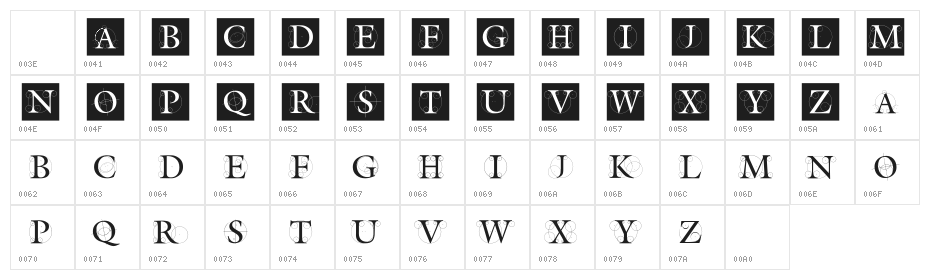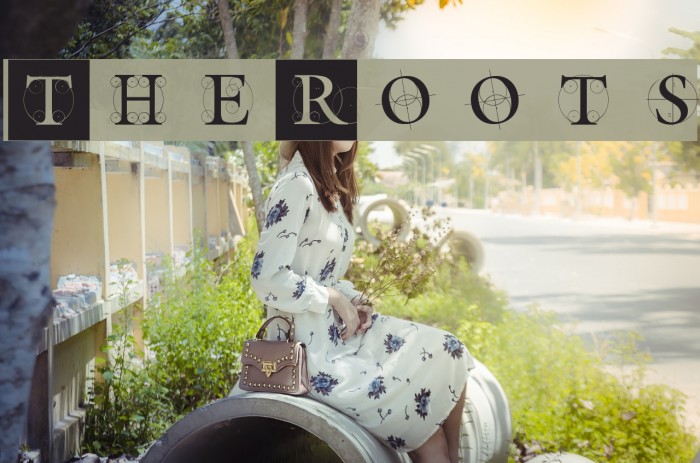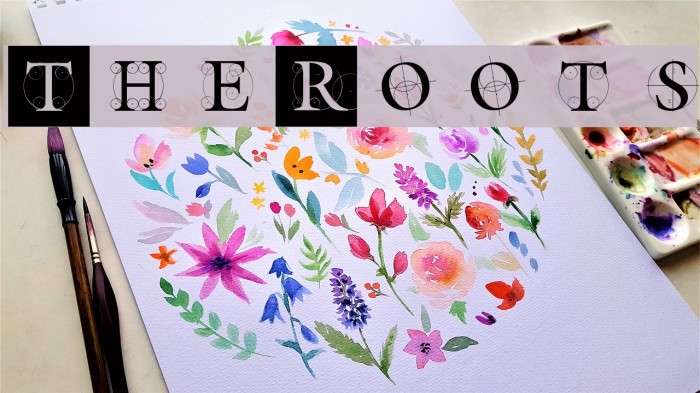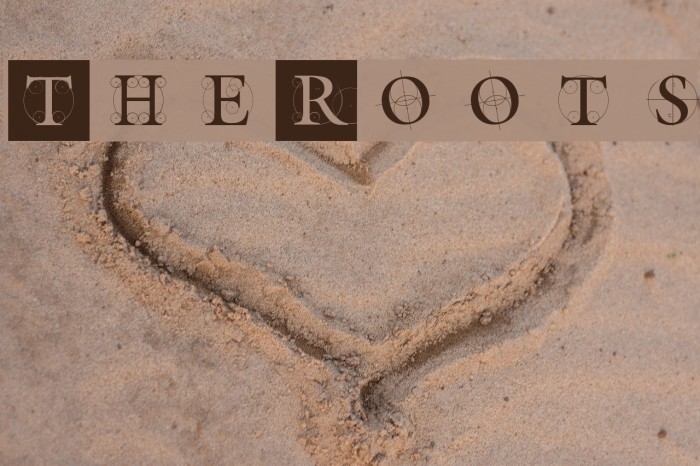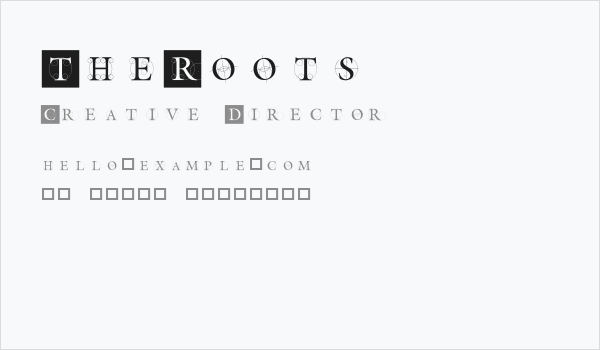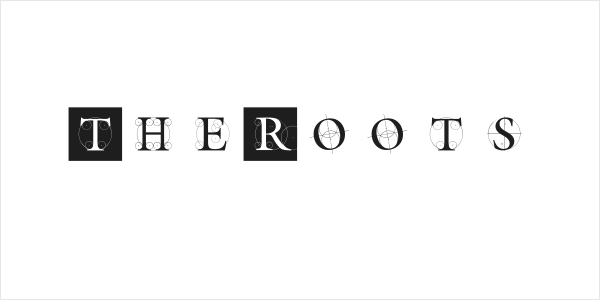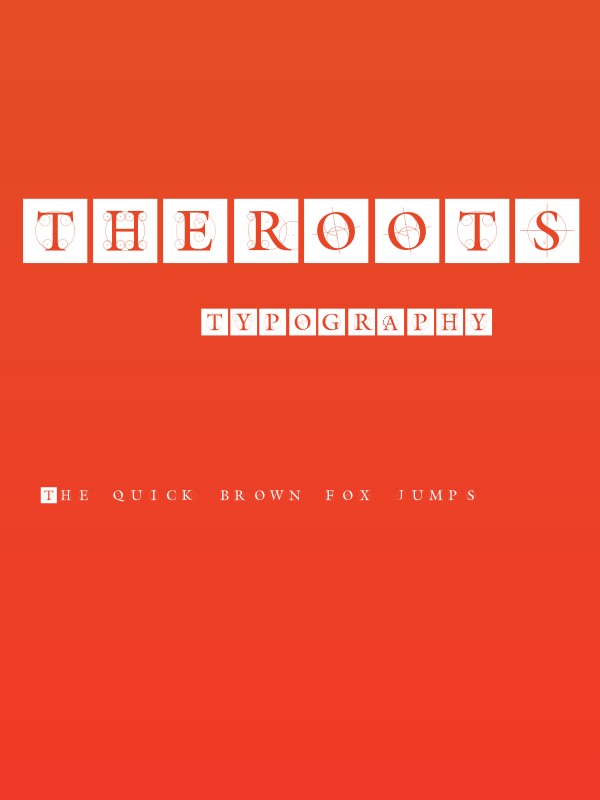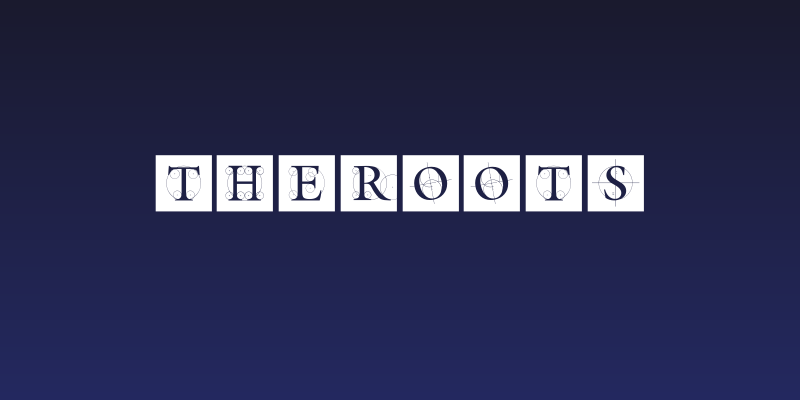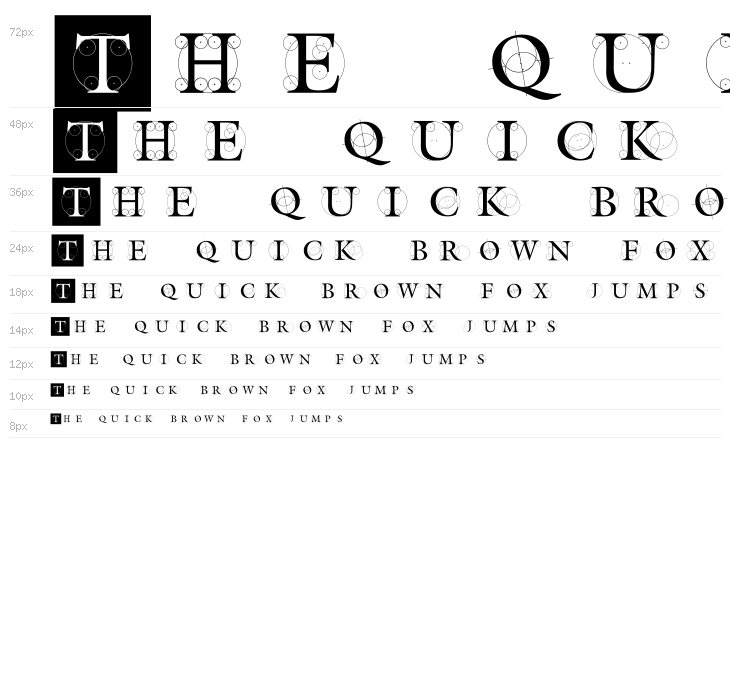
TheRoots Font
TheRoots Description
This font features a unique blend of classic serif elements with a modern twist. Each character is encased in a square, providing a distinct and structured appearance. The letters are adorned with intricate, swirling embellishments that add an artistic flair, making them stand out. The overall design is both elegant and bold, with a high contrast between the thick and thin strokes. This font is perfect for projects that require a touch of sophistication and creativity, such as branding, invitations, or editorial design. Its decorative nature makes it ideal for headlines and titles, where it can be appreciated in larger sizes.
| Proposed Projects | Ideal for branding, invitations, editorial design, and any project needing a sophisticated, artistic touch. |